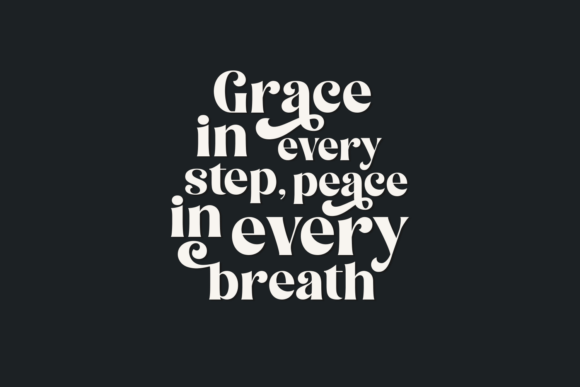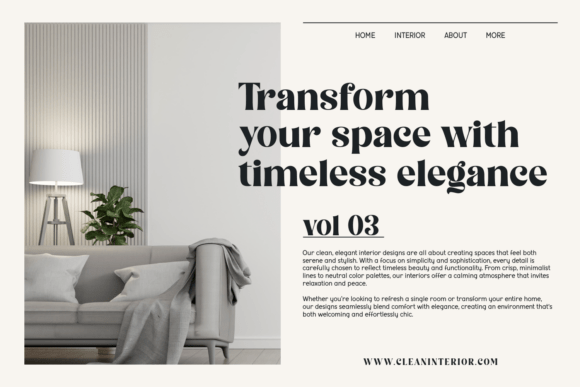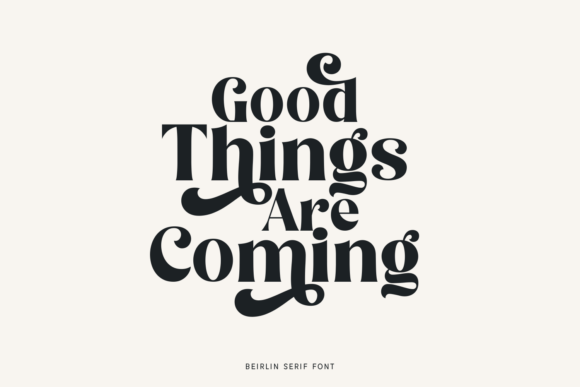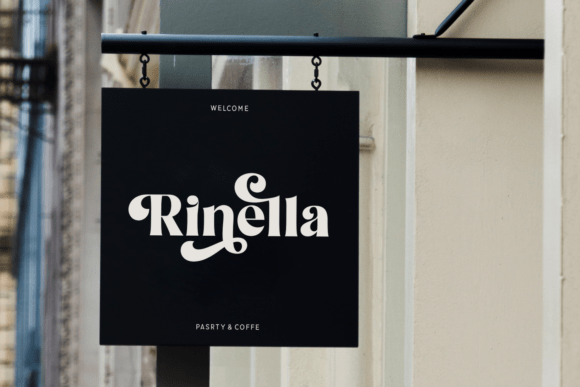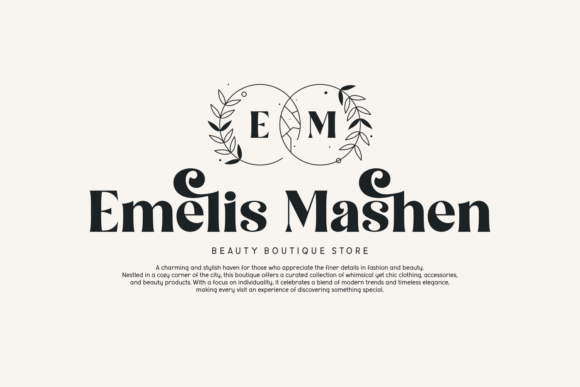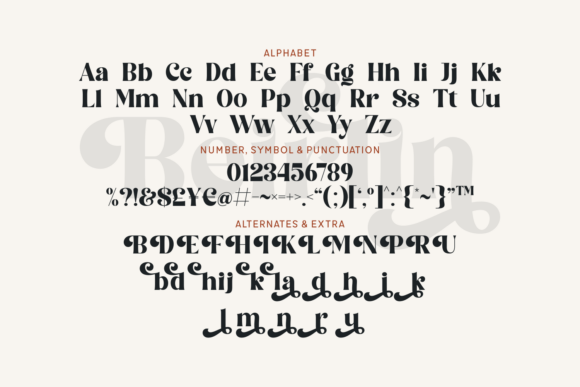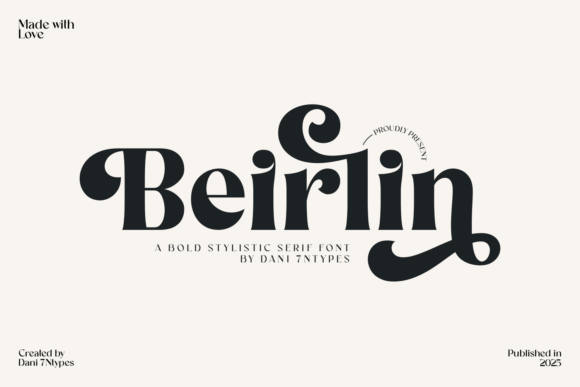
Discover the Timeless Elegance of Beirlin Font
Are you a designer or crafter looking for a font that can elevate your creative projects to the next level? Look no further than the Beirlin Font, a lovely and timeless serif font that is sure to capture your audience’s attention. With its unique and beautiful touch, Beirlin Font is the perfect choice for creating eye-catching logos, branding, and quotes that will make your design come alive!
The Characteristics of Beirlin Font
Beirlin Font boasts a classic serif design that exudes elegance and sophistication. Its timeless appeal makes it suitable for a wide range of design projects, from traditional branding and advertising to modern digital media. Each letter in the Beirlin Font has been carefully crafted to possess a unique and beautiful touch, setting it apart from other fonts in its category.
Why Choose Beirlin Font?
So, what makes Beirlin Font the best choice for designers and crafters? Here are just a few reasons why Beirlin Font stands out:
• Timeless Appeal: Beirlin Font’s classic design ensures that your work will never go out of style, making it a valuable addition to your font library.
• Elegant and Sophisticated: The serif design of Beirlin Font adds a touch of elegance and sophistication to any design project, making it perfect for high-end branding and advertising.
• Unique and Beautiful: Every letter in the Beirlin Font has been carefully crafted to possess a unique and beautiful touch, ensuring that your design stands out from the crowd.
• Versatile: Beirlin Font is suitable for a wide range of design projects, from logos and branding to quotes and digital media.
Using Beirlin Font for Logos and Branding
When it comes to creating logos and branding, Beirlin Font is an excellent choice. Its classic design and elegant touch make it perfect for:
• Logos: Create a lasting impression with a logo that features Beirlin Font. Its unique and beautiful touch will ensure that your logo stands out from the competition.
• Branding: Establish a strong brand identity with Beirlin Font. Its timeless appeal and elegant design make it perfect for creating a cohesive brand image.
• Typography: Use Beirlin Font to add a touch of elegance and sophistication to your typography. Its classic design ensures that your message will be conveyed in a clear and stylish manner.
Tips for Using Beirlin Font
To get the most out of Beirlin Font, here are a few tips to keep in mind:
• Use it sparingly: Beirlin Font is a statement font, so use it sparingly to make a lasting impression.
• Experiment with colors: Beirlin Font looks great in a variety of colors, so don’t be afraid to experiment and find the perfect hue for your design.
• Pair it with other fonts: Beirlin Font pairs well with other fonts, so try combining it with a sans-serif font for a stylish contrast.
In conclusion, Beirlin Font is a timeless and elegant serif font that is perfect for designers and crafters looking to elevate their creative projects. With its unique and beautiful touch, Beirlin Font is sure to capture your audience’s attention and make your design come alive. Whether you’re creating logos, branding, or quotes, Beirlin Font is an excellent choice that will ensure your work stands out from the crowd.